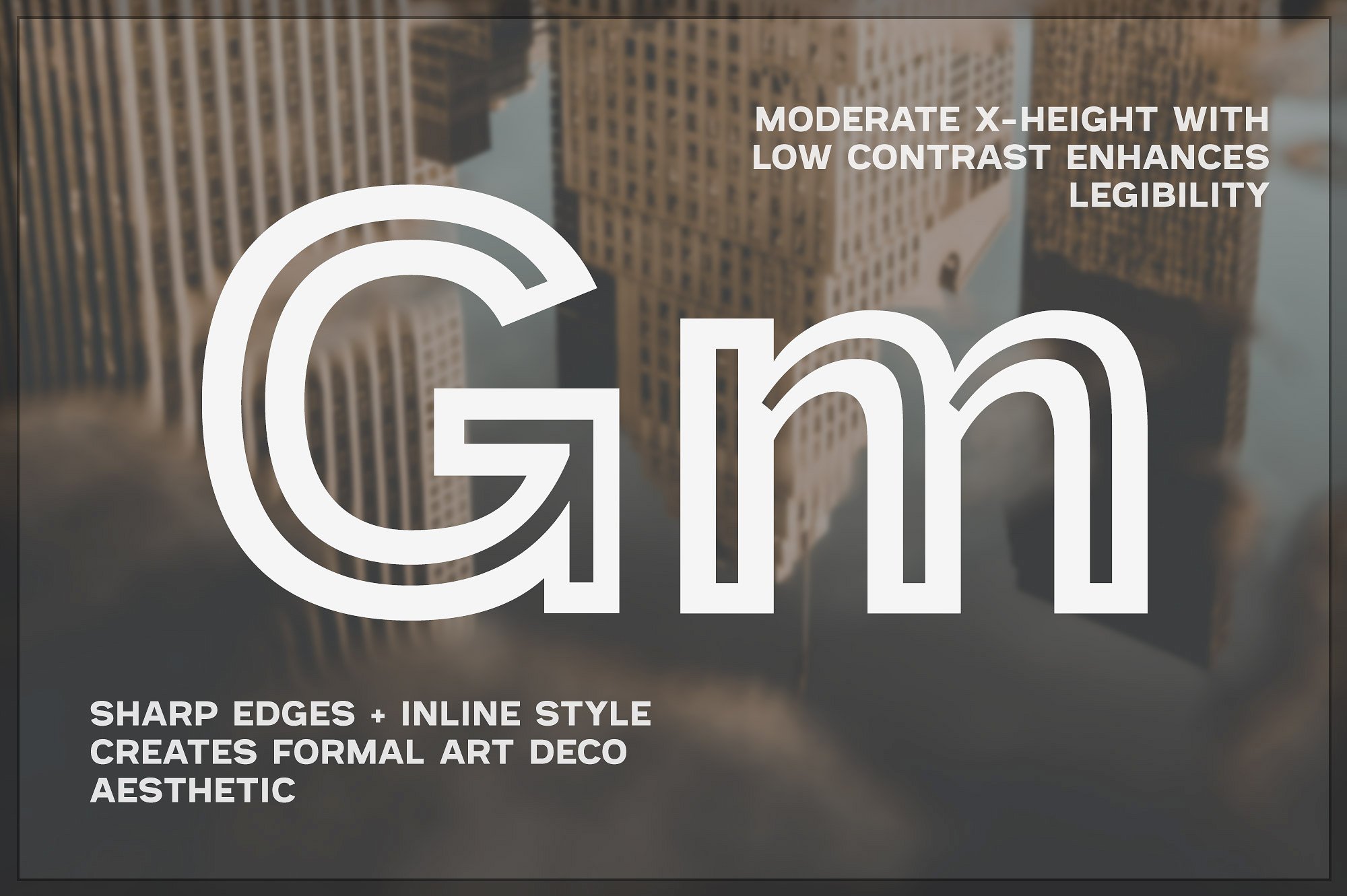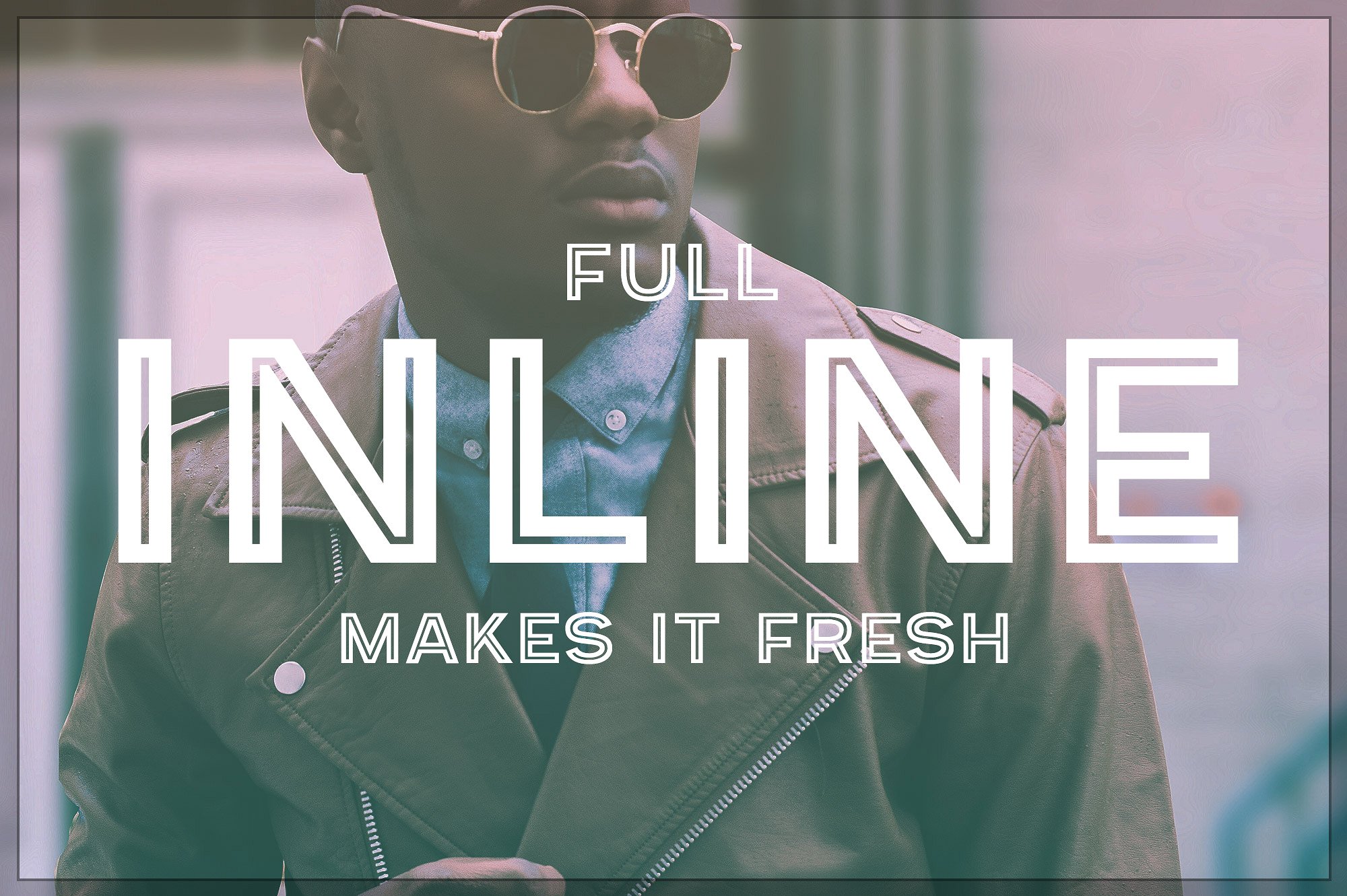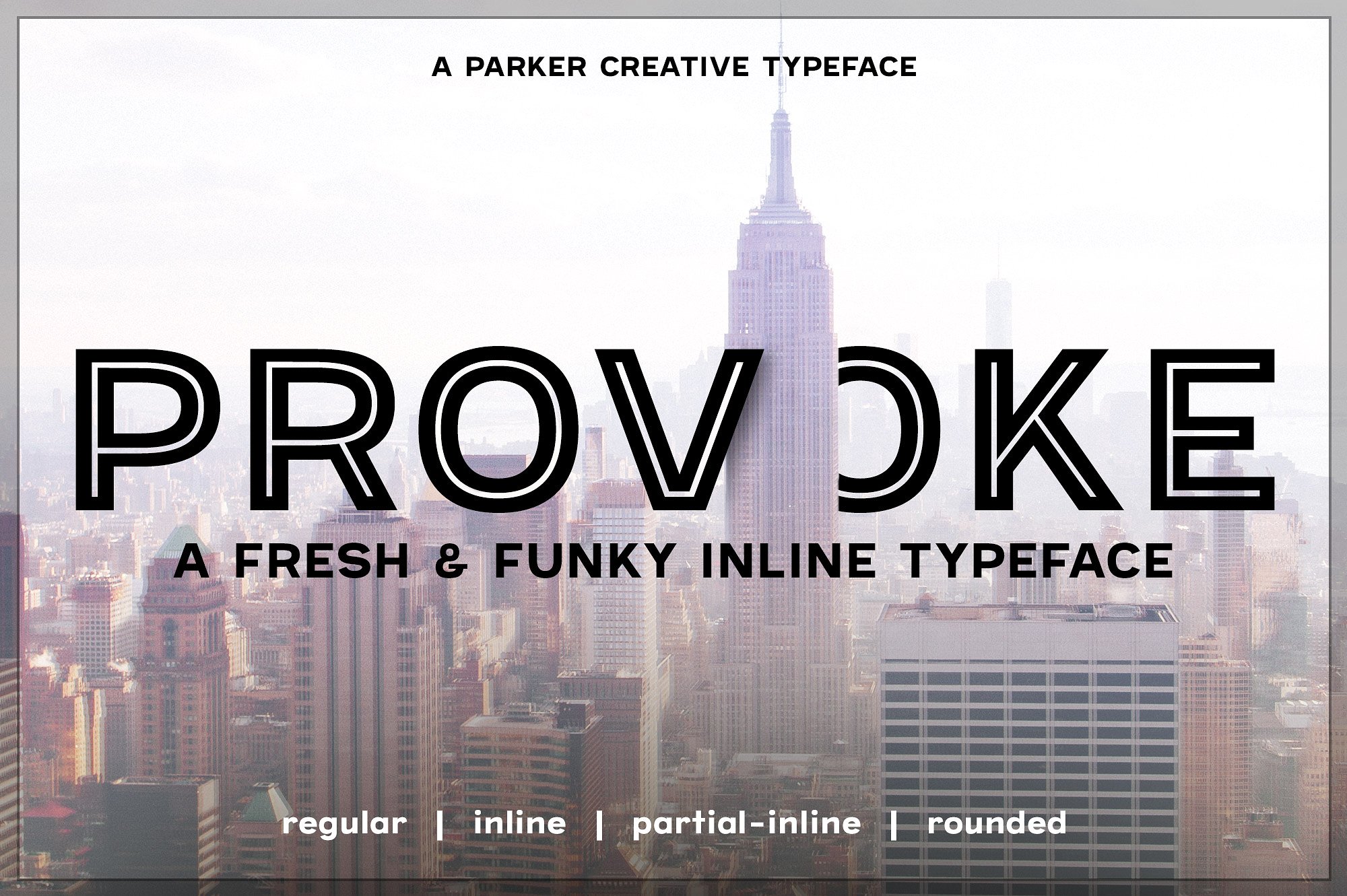
Provoke Typeface
Introducing Provoke, a fresh and funky inline typeface with 10 stunning font variations!
Inspired by Art Deco design, Provoke is a powerful display typeface that features sharp geometric design and stunning inline cutouts of varying styles. This typeface is boldly rooted in modern urban culture and can create two incredibly distinct visual styles based on the specific font that is utilized.